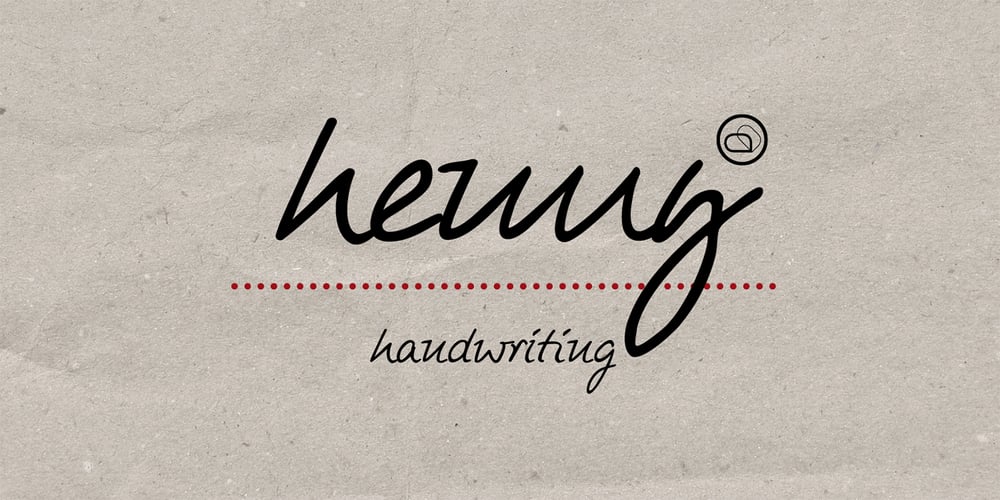
Henny Font Family was designed by published by driemeyerdesign. Henny contains 2 styles and family package options. Henny is a simple but elegant handwriting font which is legible even in very small sizes and longer texts. There is an extended character set with some extra ligatures for a natural look. Henny was used in “Coffeeshop” for titel and headlines: http://www.amazon.de/Aus-dem-Coffeeshop-Dr-Oetker/dp/376700688X Have fun using it!